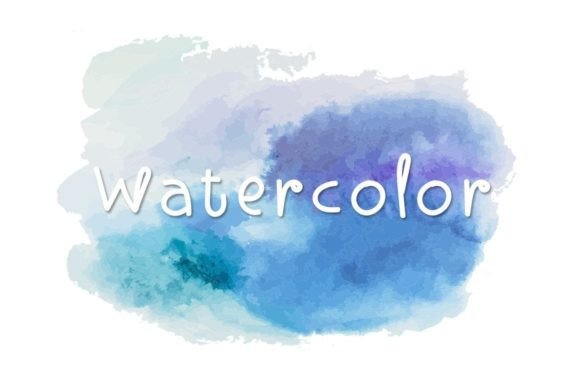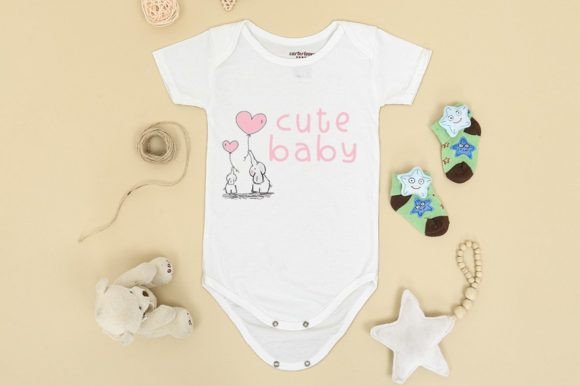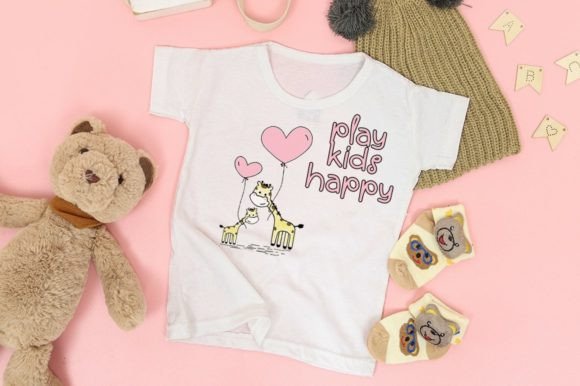
Sublimate Font
About Sublimate Font
Sublimate is not just a font; it’s a beautiful and sweet work of art that adds a touch of freshness, cleanliness, and elegance to your designs. With its charming and graceful design, this font radiates a sense of joy and sophistication, making it a perfect choice for a wide variety of projects, both formal and informal. Sublimate’s versatility ensures it enhances the visual appeal of your designs, adding a joyful and delightful touch.
Imagine Sublimate in formal projects, such as wedding invitations. Its fresh, clean, and elegant characters create a sense of refinement and sophistication, setting the perfect tone for a luxurious celebration. Whether it’s a wedding invitation, a menu card, or a place setting, this font adds a touch of grace, making the formal occasion visually appealing and memorable. Sublimate’s sweet charm ensures that your invitations exude elegance and class, creating a lasting impression on guests.
In informal projects, Sublimate adds a touch of joy. Picture it on birthday cards, casual invitations, or family event announcements. Its beautiful and sweet design creates a warm and friendly atmosphere, making the informal occasions special and heartwarming. Sublimate’s delightful touch ensures that your messages are conveyed with sincerity and affection, creating a personal connection with the recipients. The font’s elegance and sweetness enhance the visual appeal, making your informal projects visually captivating and delightful.
For branding and logo design, Sublimate creates a memorable identity. Its fresh and clean characters add a touch of modernity and sophistication to your brand. Whether it’s a logo for a boutique, a beauty product, or a gourmet cafe, this font infuses a sense of elegance and joy. Sublimate’s beauty ensures that your brand stands out, leaving a positive and lasting impression on clients and customers. The font’s versatility makes it suitable for various industries, from fashion to food, allowing your brand to shine in the competitive market.
In packaging design, Sublimate adds a touch of luxury. Whether it’s on cosmetic packaging, gourmet products, or high-end merchandise, this font enhances the overall aesthetic. Sublimate’s elegance and sweetness create a sense of exclusivity and indulgence, making the products visually appealing and desirable for consumers. The font’s beauty ensures that your packaging design leaves a lasting impression, attracting customers and encouraging them to engage with your products.
Moreover, Sublimate seamlessly integrates into various design applications, allowing you to experiment with colors, layouts, and creative elements. Its versatility ensures that it adapts effortlessly to your creative vision, enhancing the overall aesthetic of your projects and leaving a lasting impact on anyone who experiences them.
In summary, Sublimate is more than just a font; it’s a beautiful and sweet masterpiece that adds a touch of joy, freshness, and elegance to your designs. Its fresh, clean, and elegant design makes it suitable for a wide range of projects, both formal and informal. So, let Sublimate be your creative inspiration, bringing a joyful and delightful vibe to your designs and captivating anyone who encounters them.